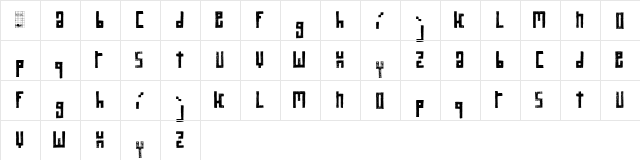
RawStreetWall Regular
| Foundry | Manuel Viergutz |
| Designer | Manuel Viergutz |
Design Context for RawStreetWall Typeface
RawStreetWall is a composed and adaptable typeface that performs quietly and consistently across a wide range of design contexts.